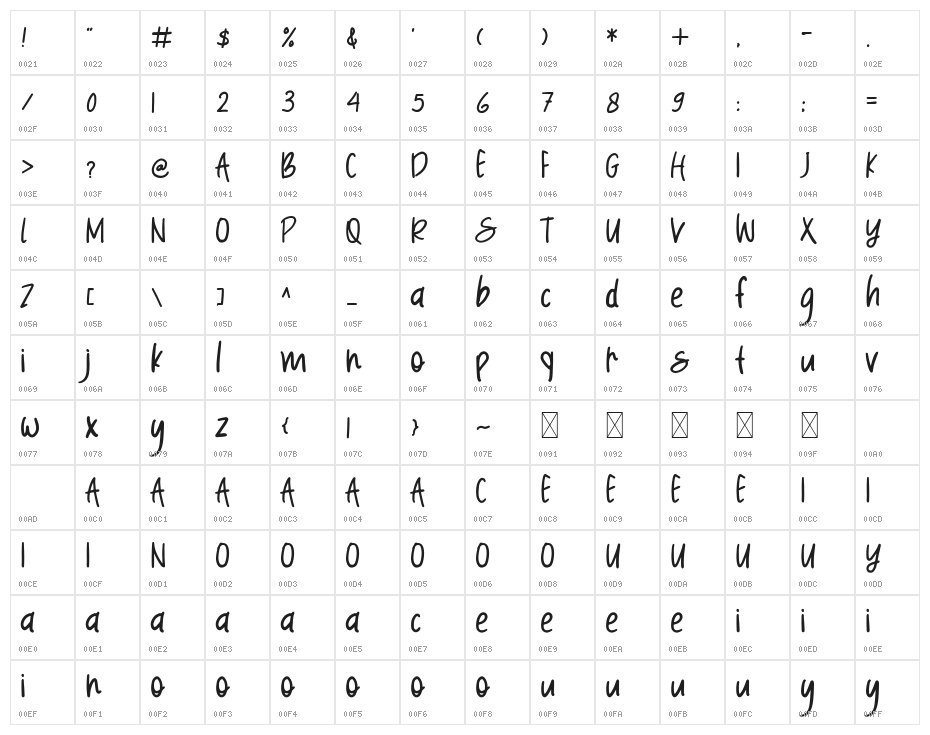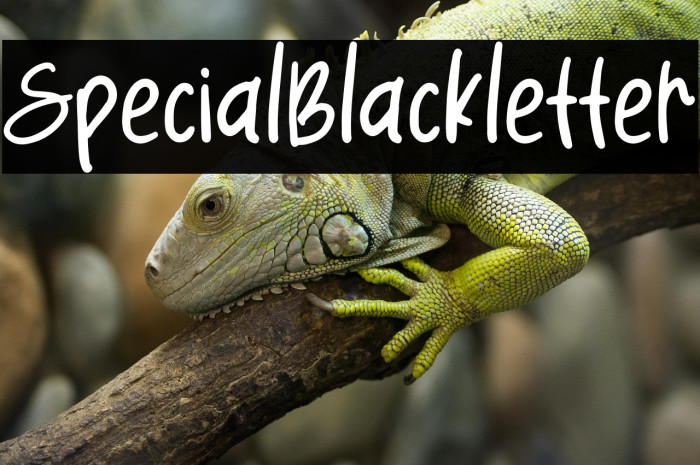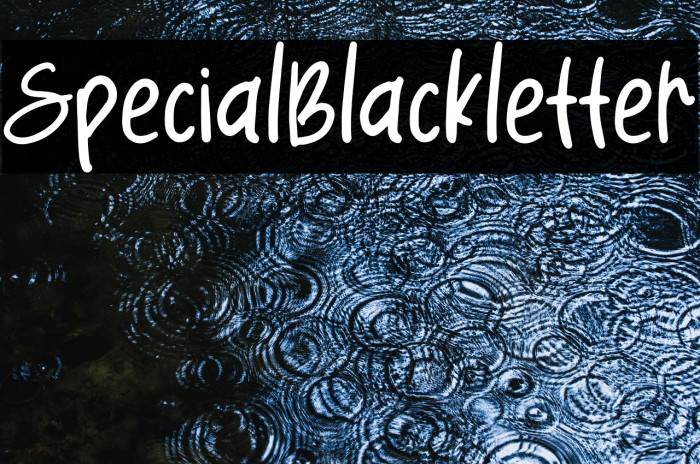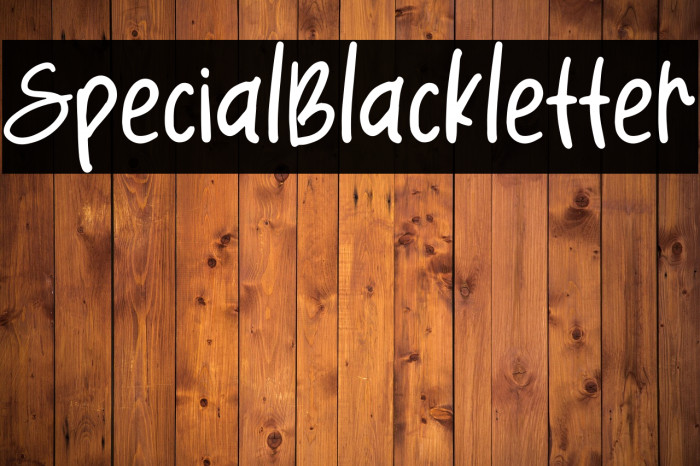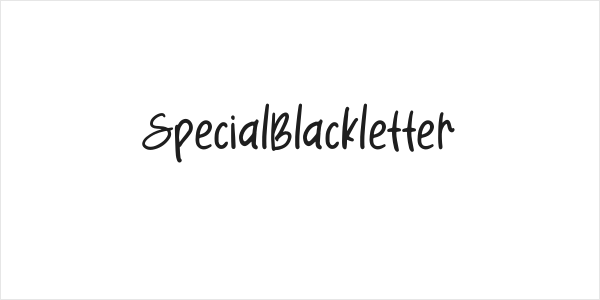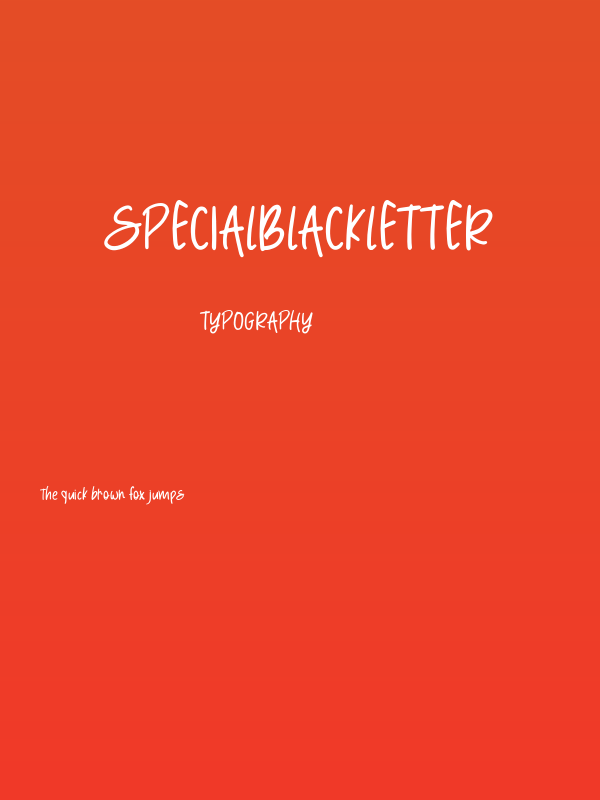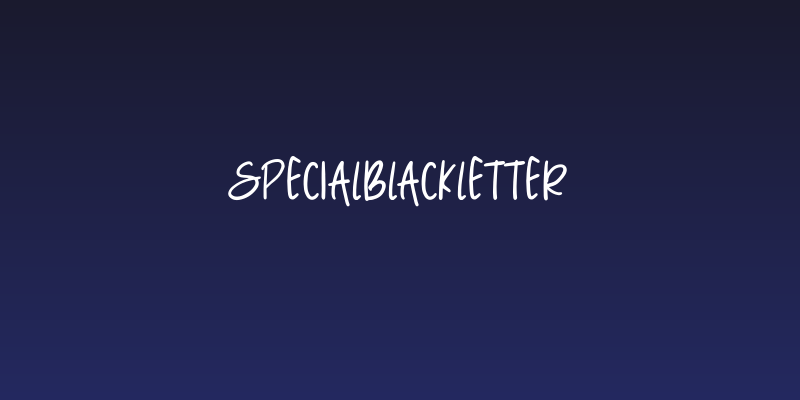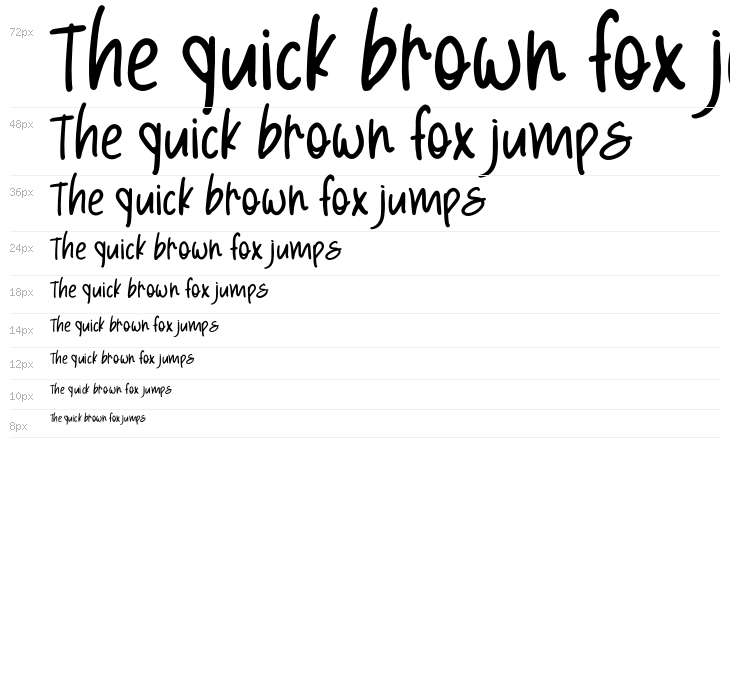
SpecialBlackletter Font
SpecialBlackletter Description
This font features a playful and casual handwritten style, characterized by its smooth, flowing lines and slightly irregular shapes. The letters have a natural, organic feel, with a consistent stroke width that gives it a relaxed and approachable appearance. The uppercase and lowercase letters maintain a harmonious balance, while the numerals and special characters integrate seamlessly into the overall design. This font's informal aesthetic makes it ideal for projects that require a personal touch or a friendly, inviting tone.
| Proposed Projects | Ideal for greeting cards, invitations, personal branding, and social media graphics. |